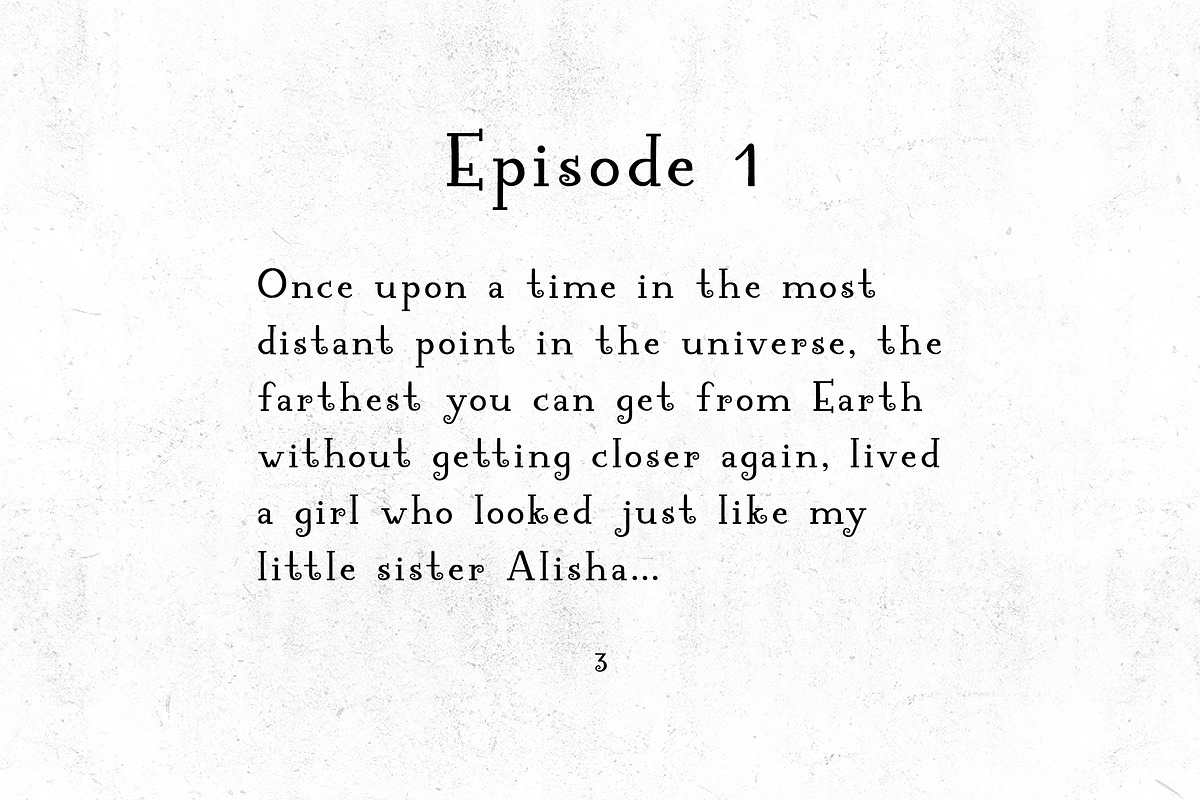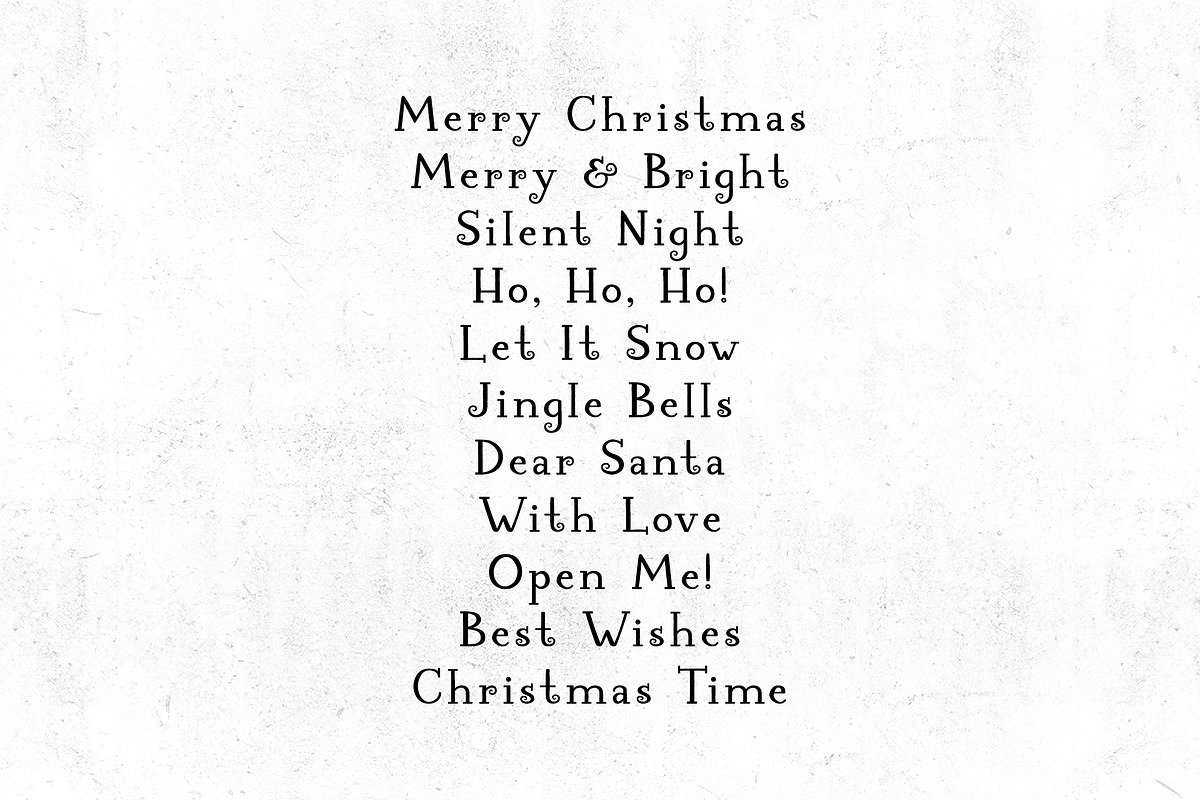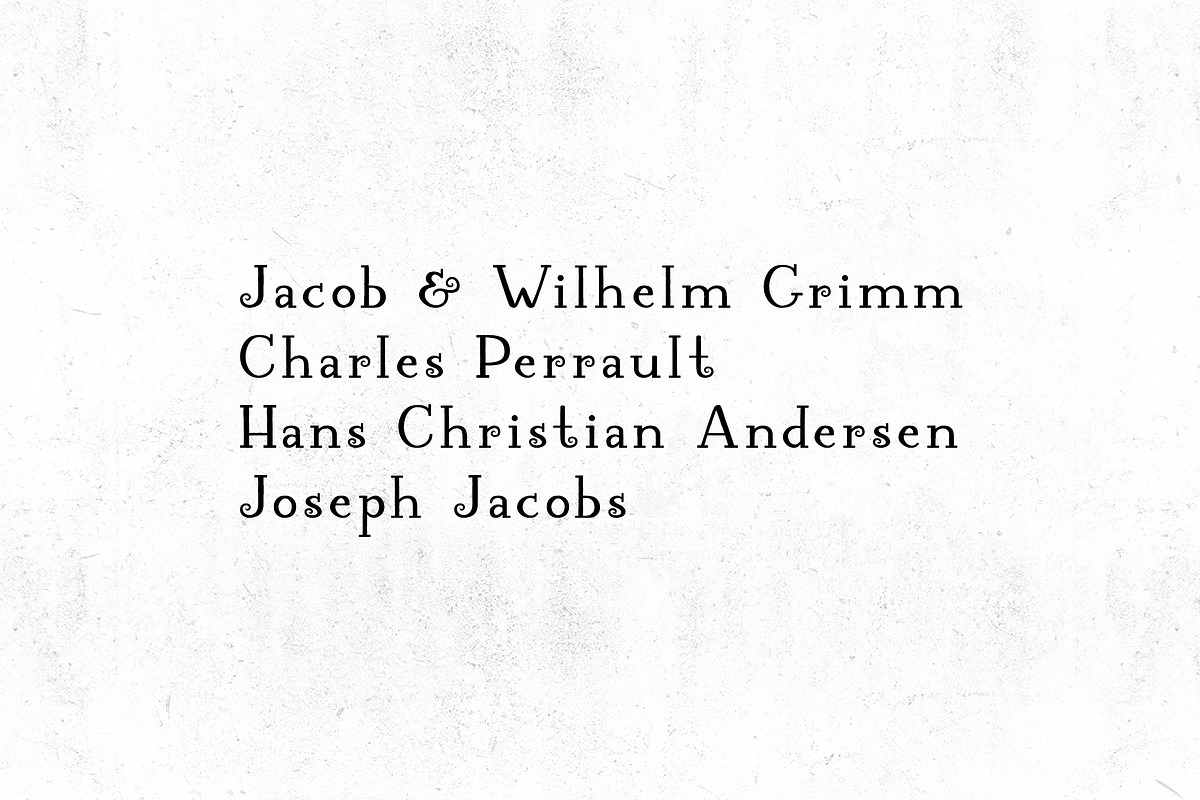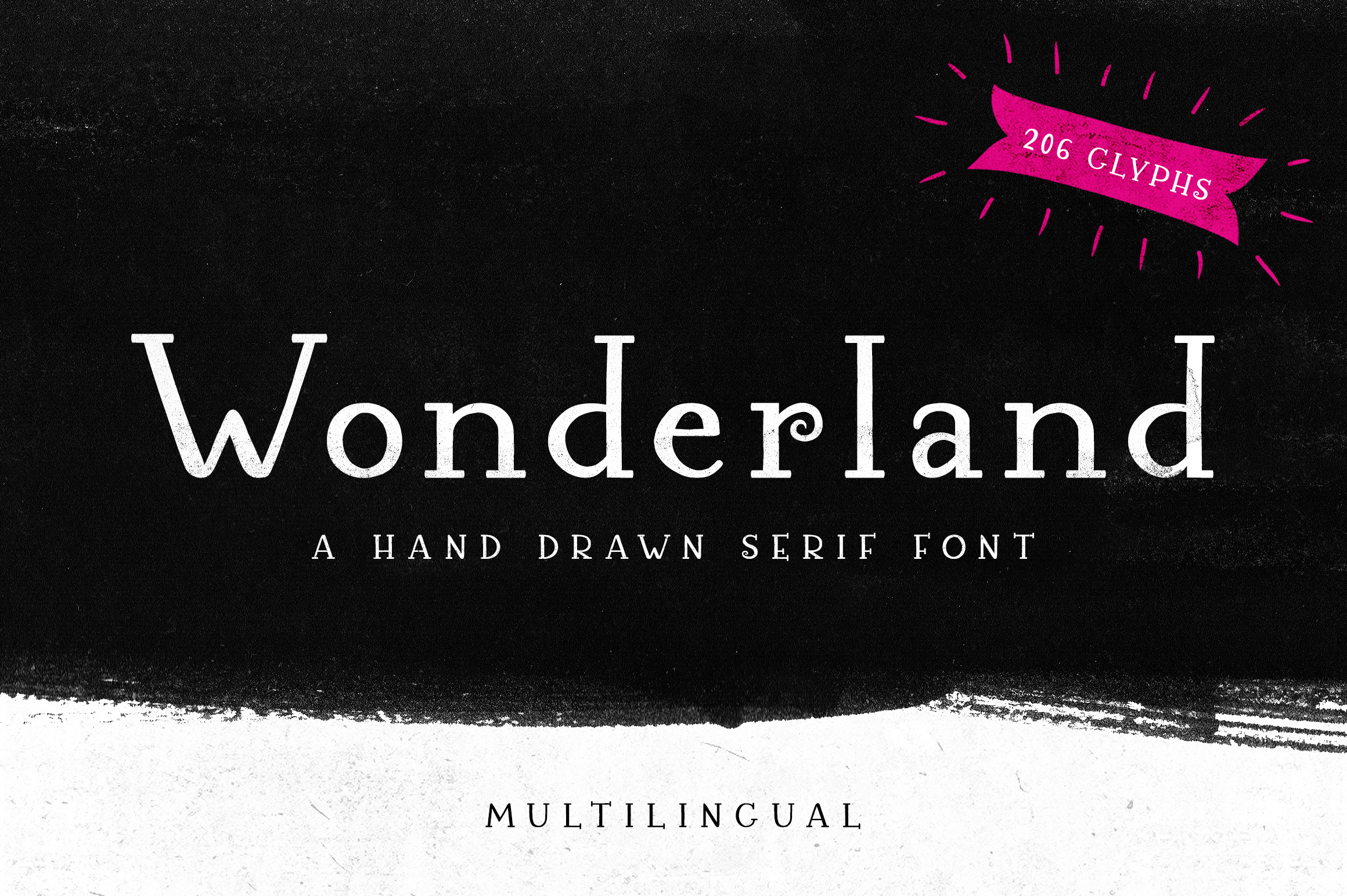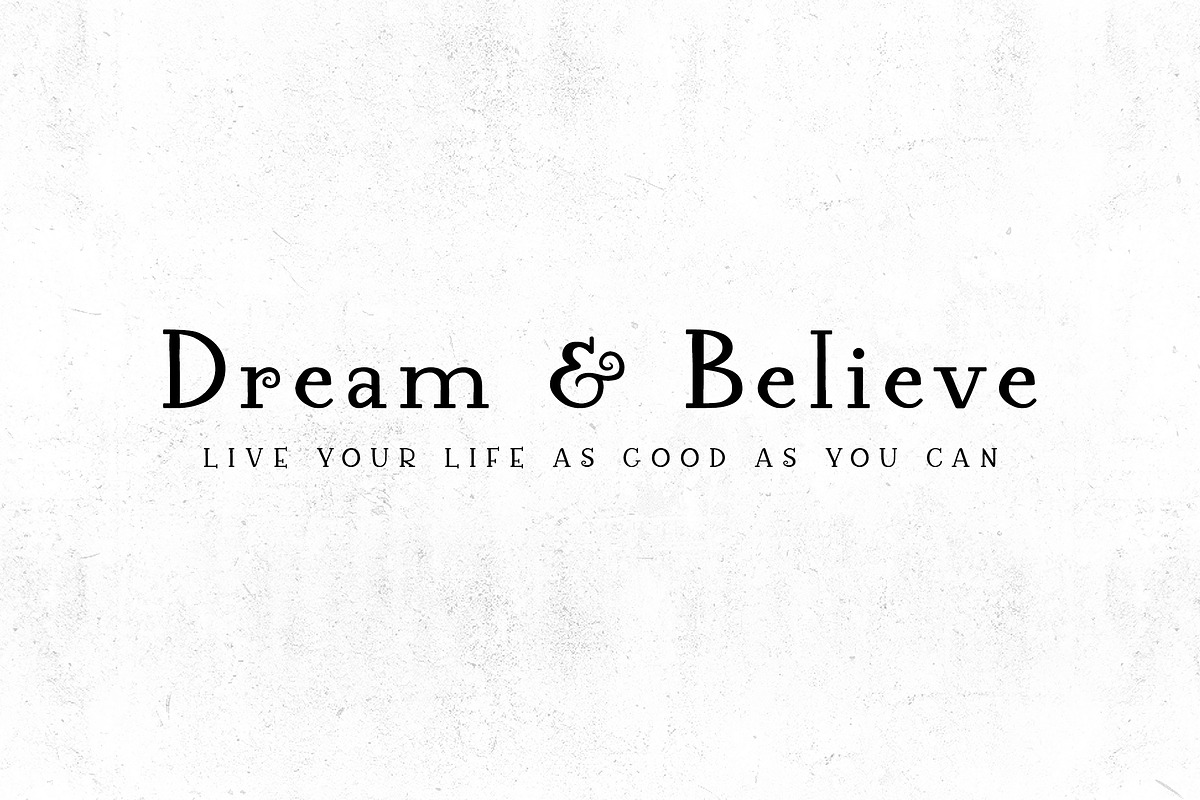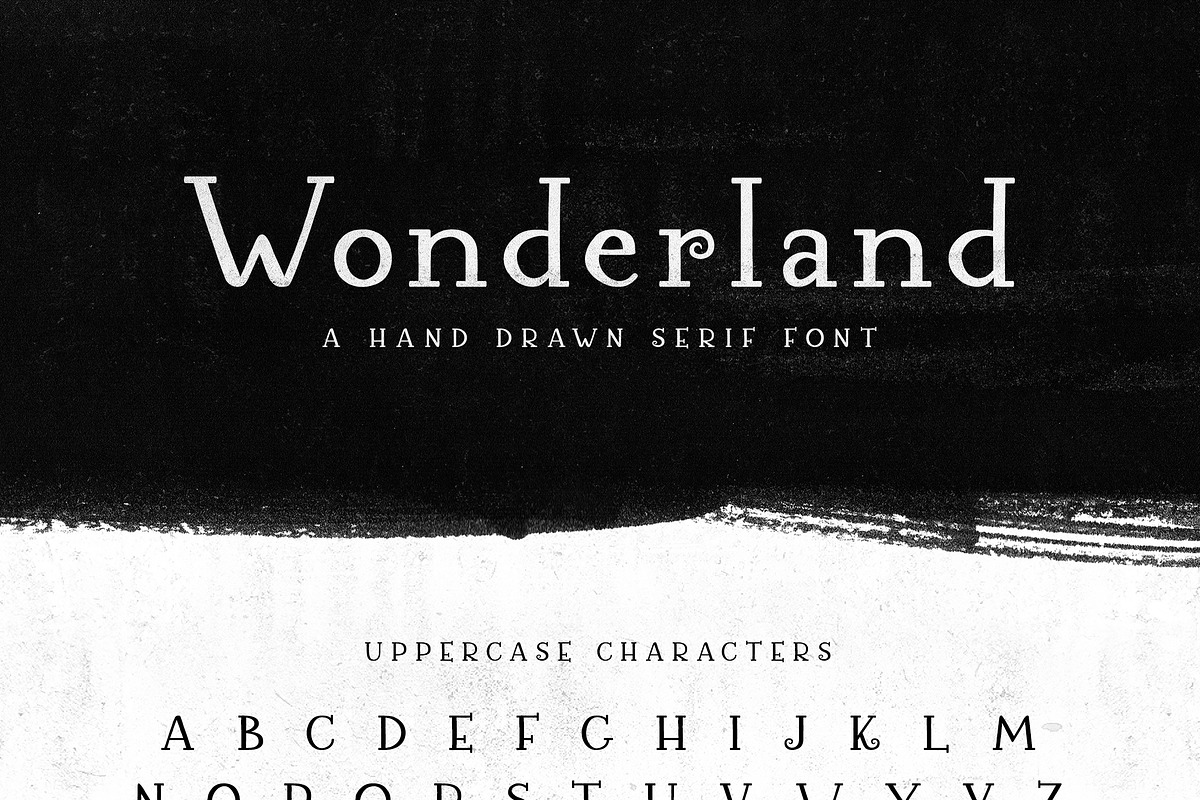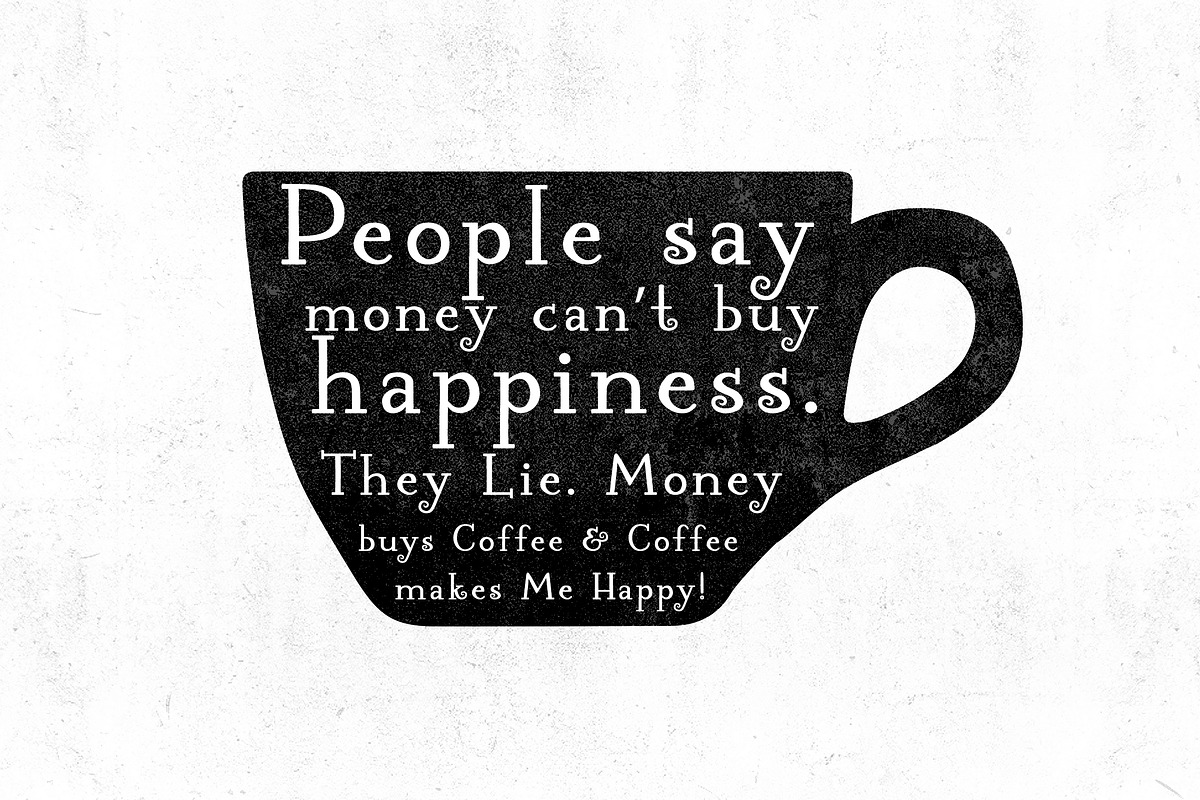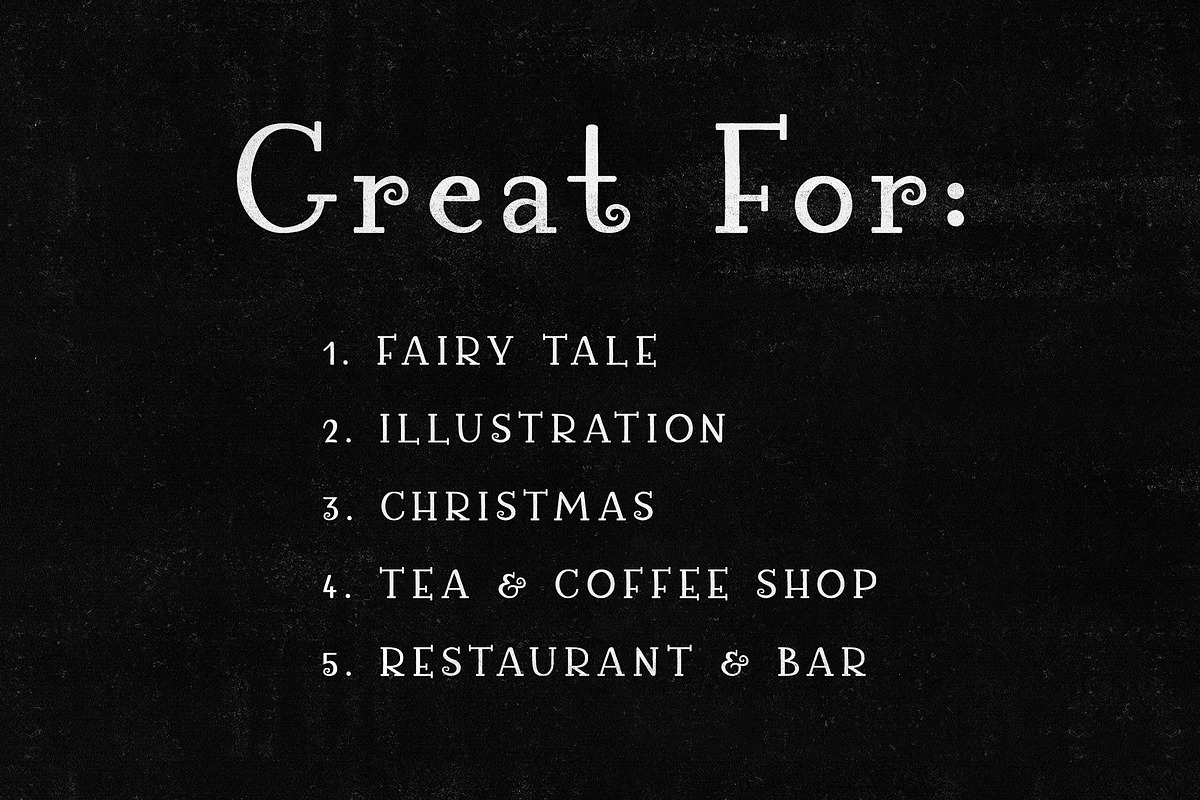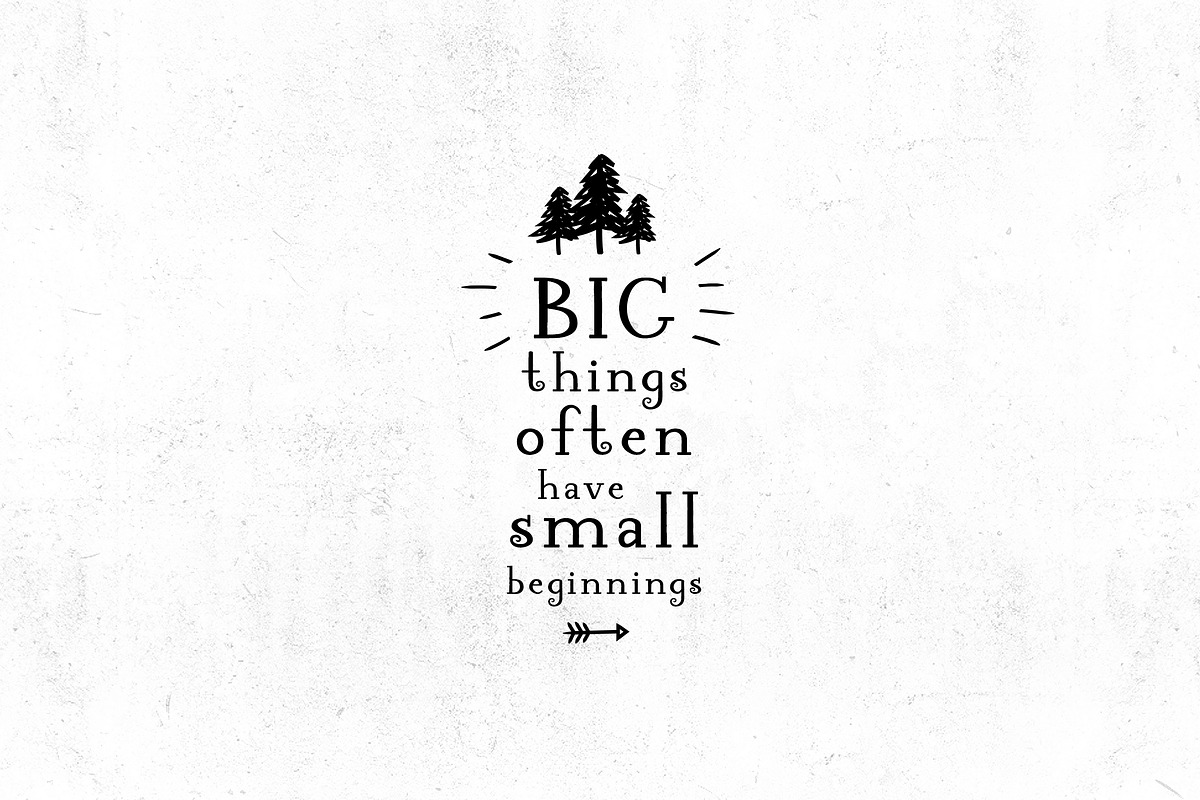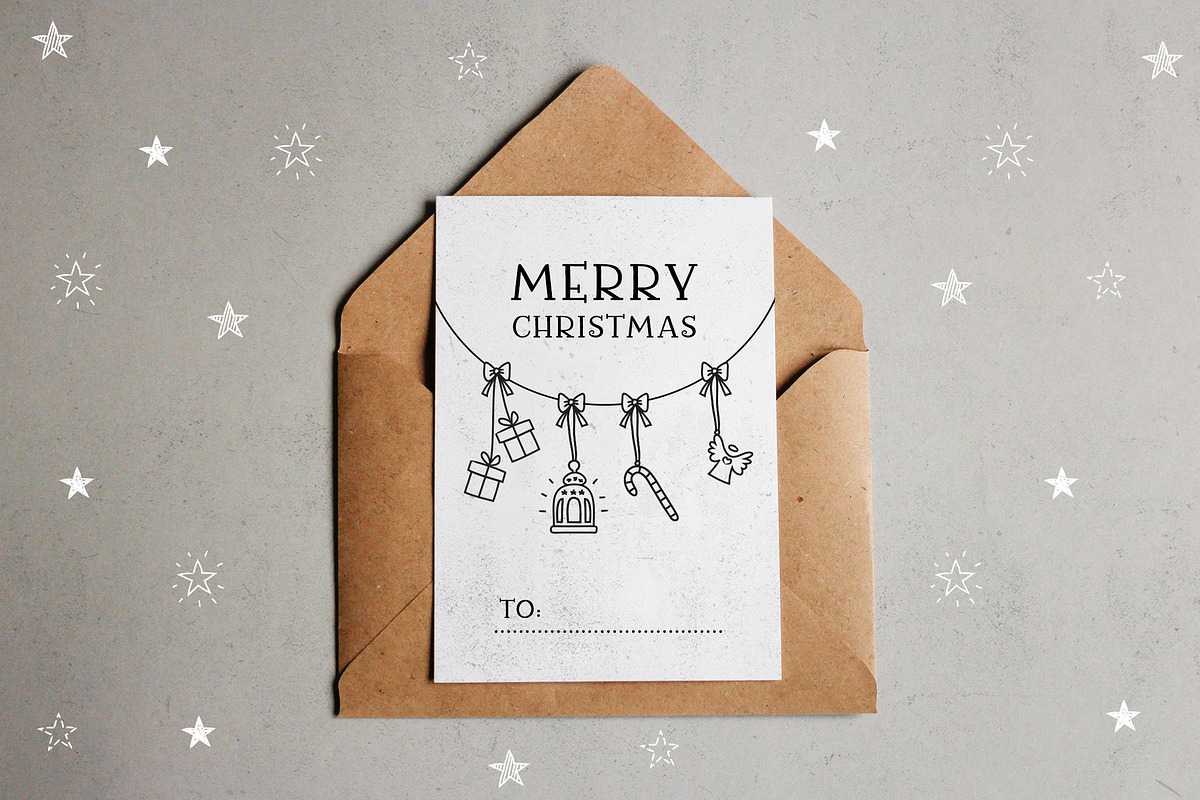
Wonderland - A Hand Drawn Serif Font
I have created lovely, multilingual supported, a hand drawn serif font Wonderland!
Great for Fairy tales, Illustrations, Christmas, Tea & Coffee shops, Restaurant & Bars. Font contains more than 200 glyphs and 1270 kerning pairs.
Font has multilingual support for the following languages: Cornish, Český, Danish, Dutch, English, Esperanto, Estonian, Faroese, Filipino, Finnish, French, Galician, German, Icelandic, Indonesian, Irish, Italian, Norwegian bokmal, Norwegian nynorsk, Pinyin, Portuguese, Romanian, Slovenský, Spanish, Swahili, Swedish, Swiss German, may be more...